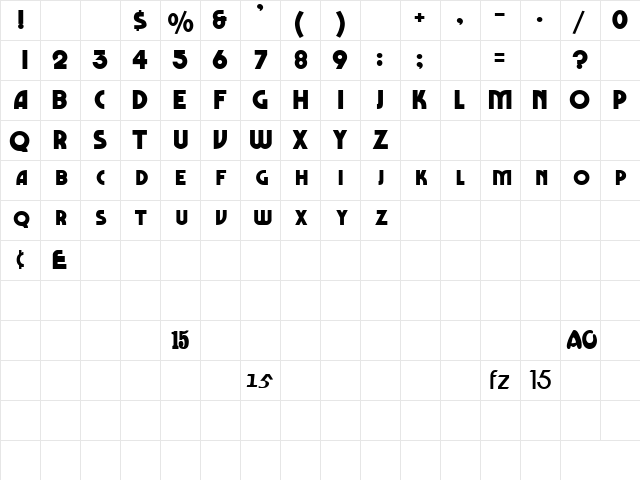
QuestaSCapsSSK Regular
Design Context for QuestaSCapsSSK Typeface
QuestaSCapsSSK is a composed and adaptable typeface that performs quietly and consistently across a wide range of design contexts.